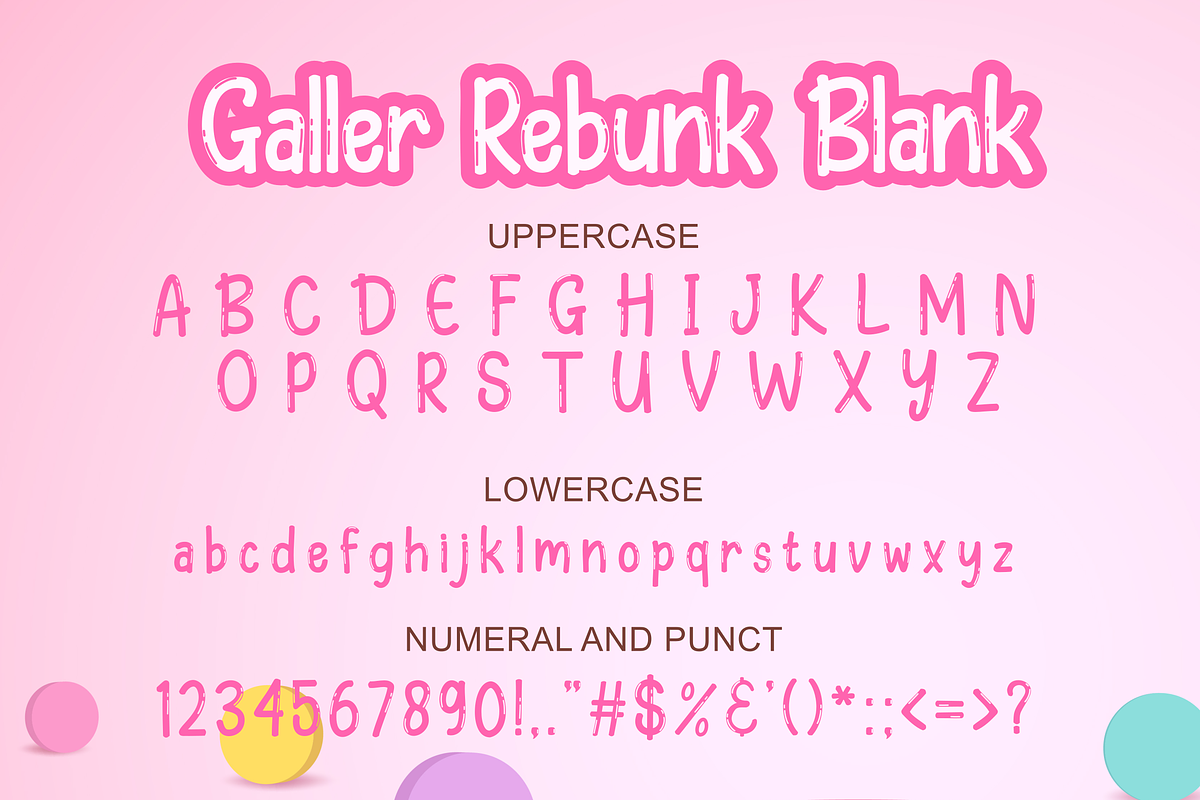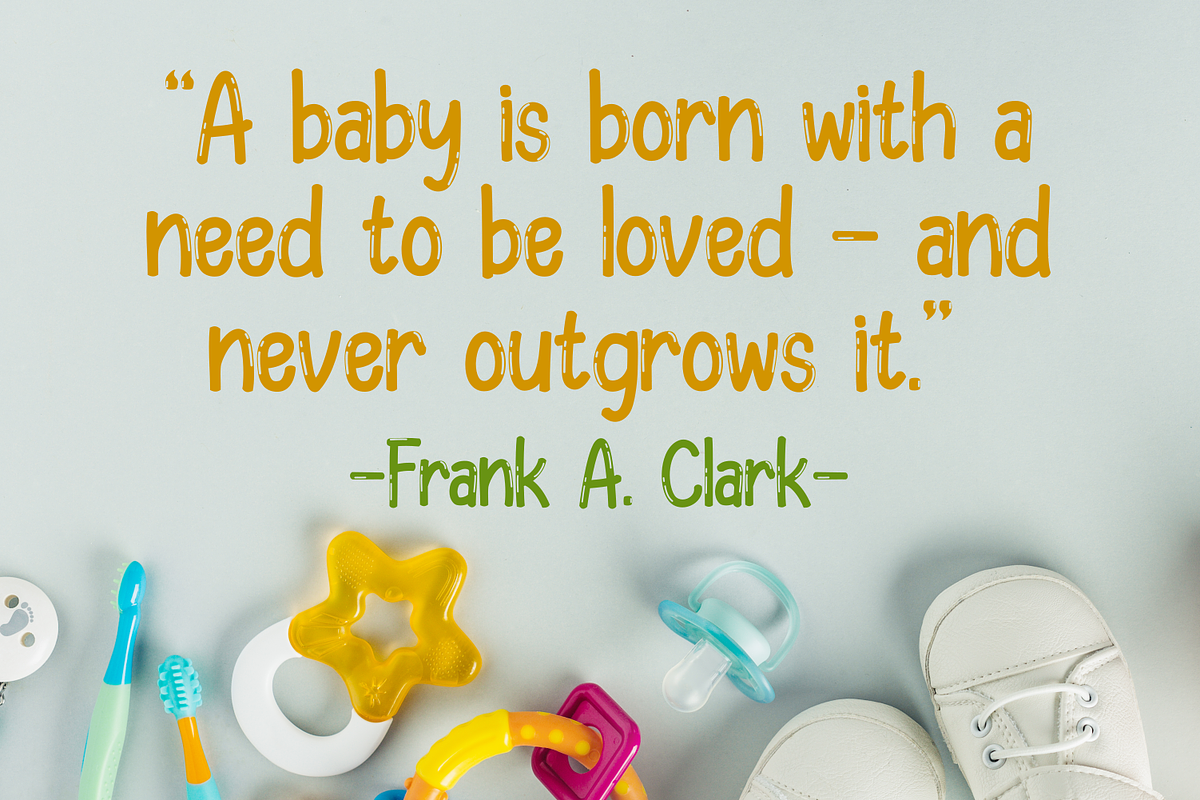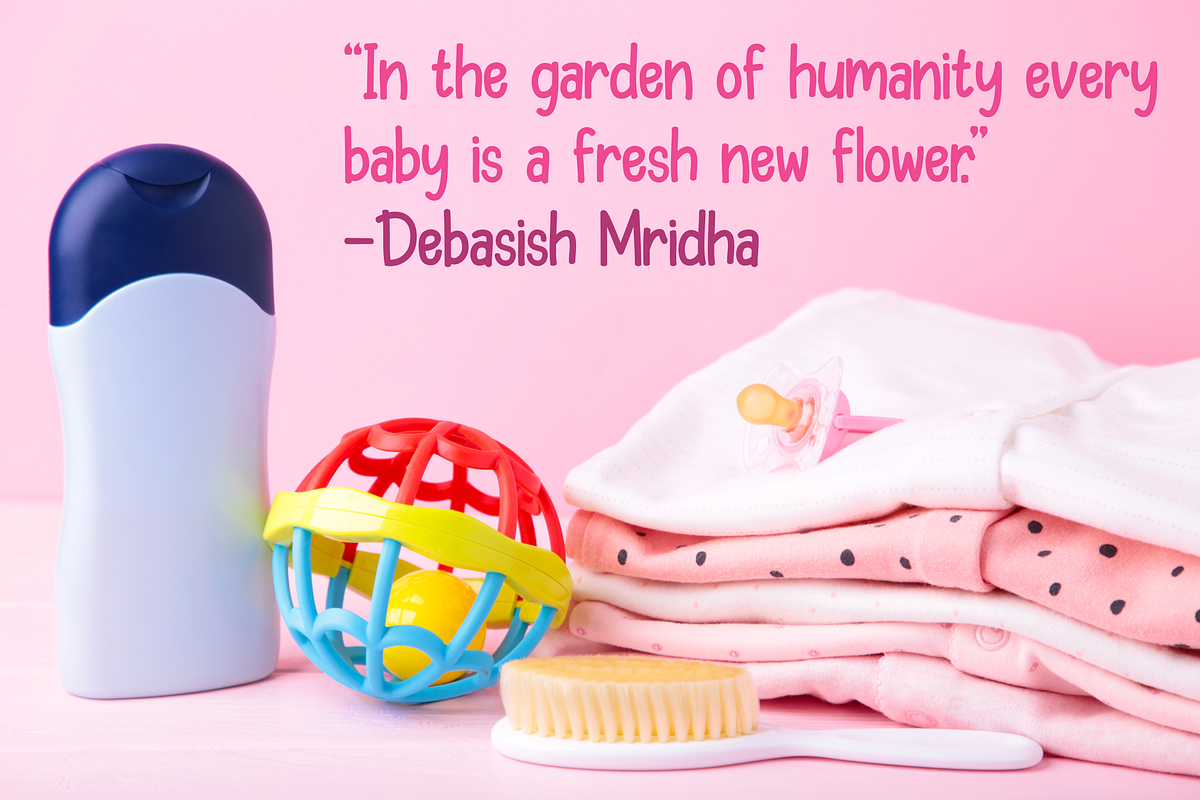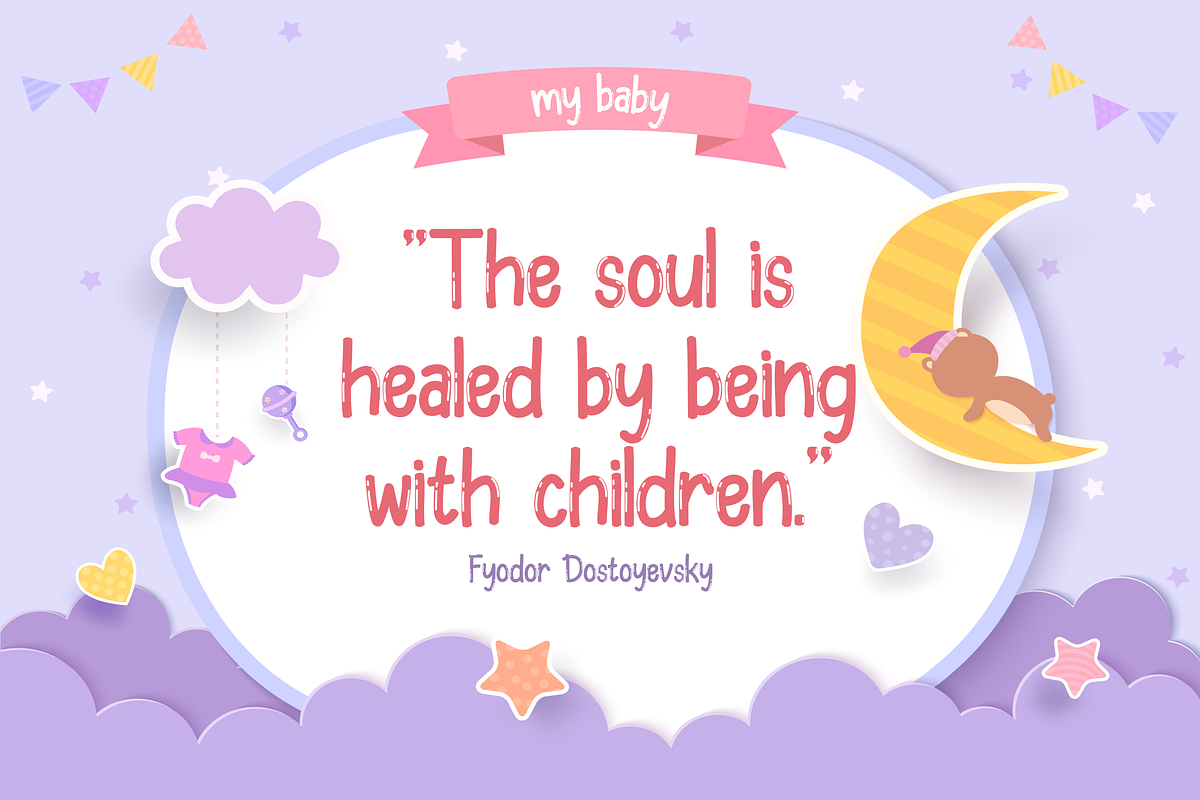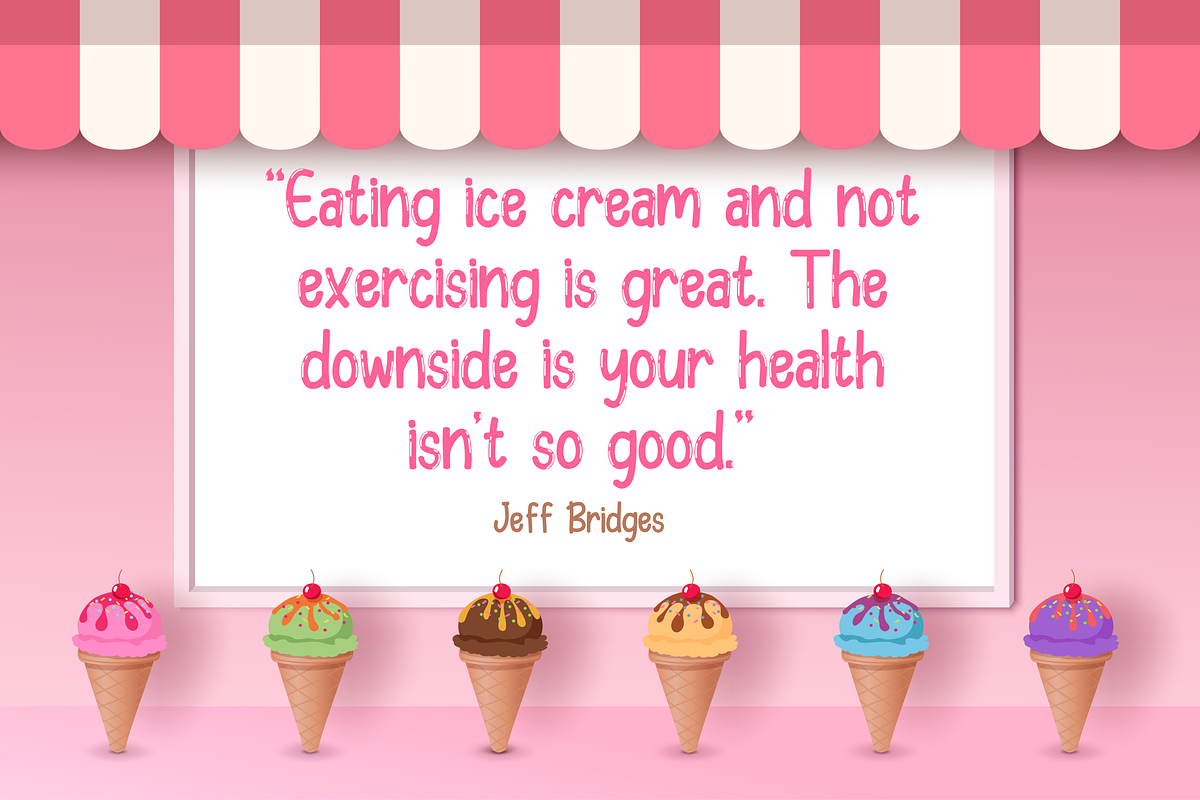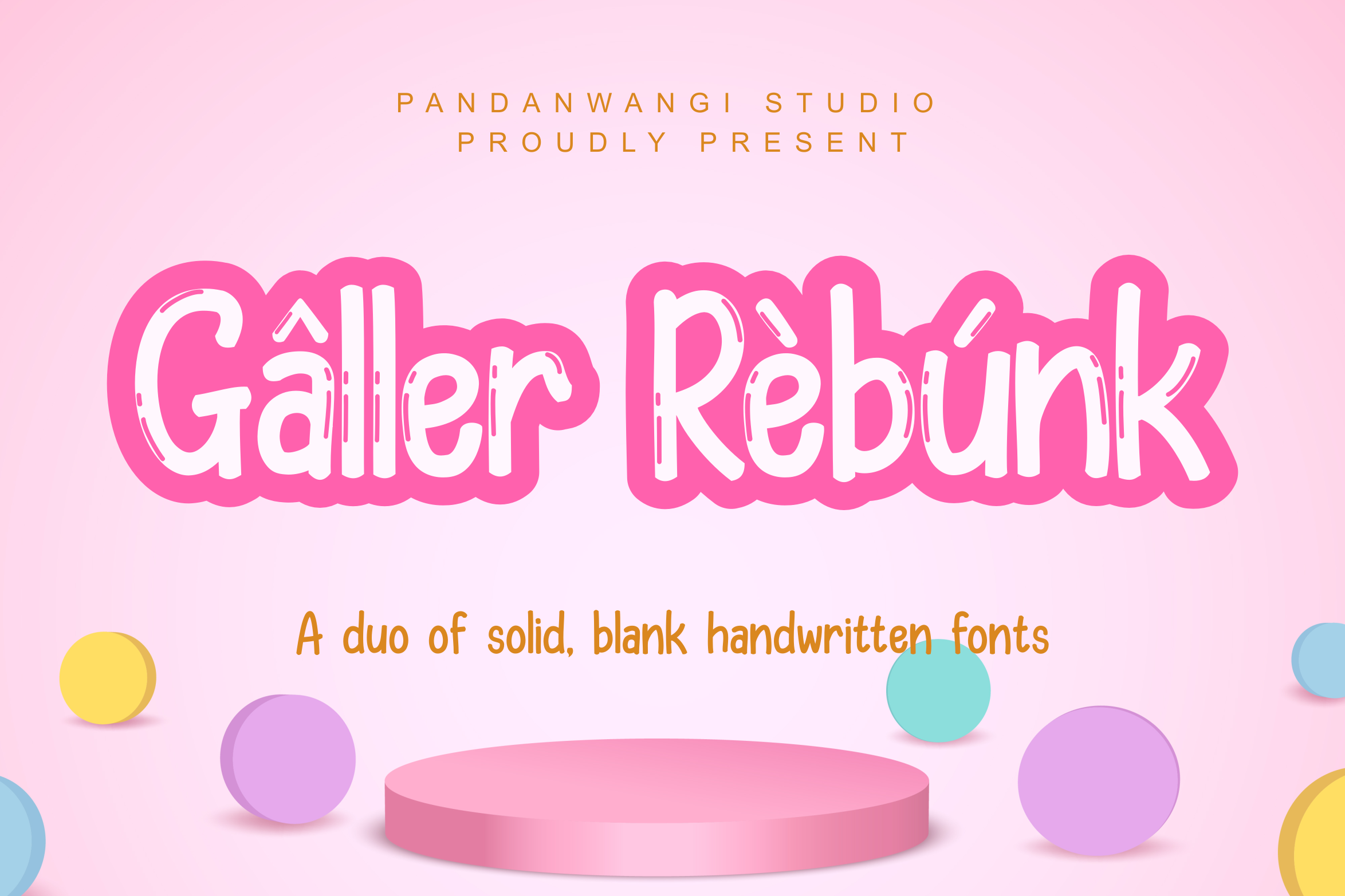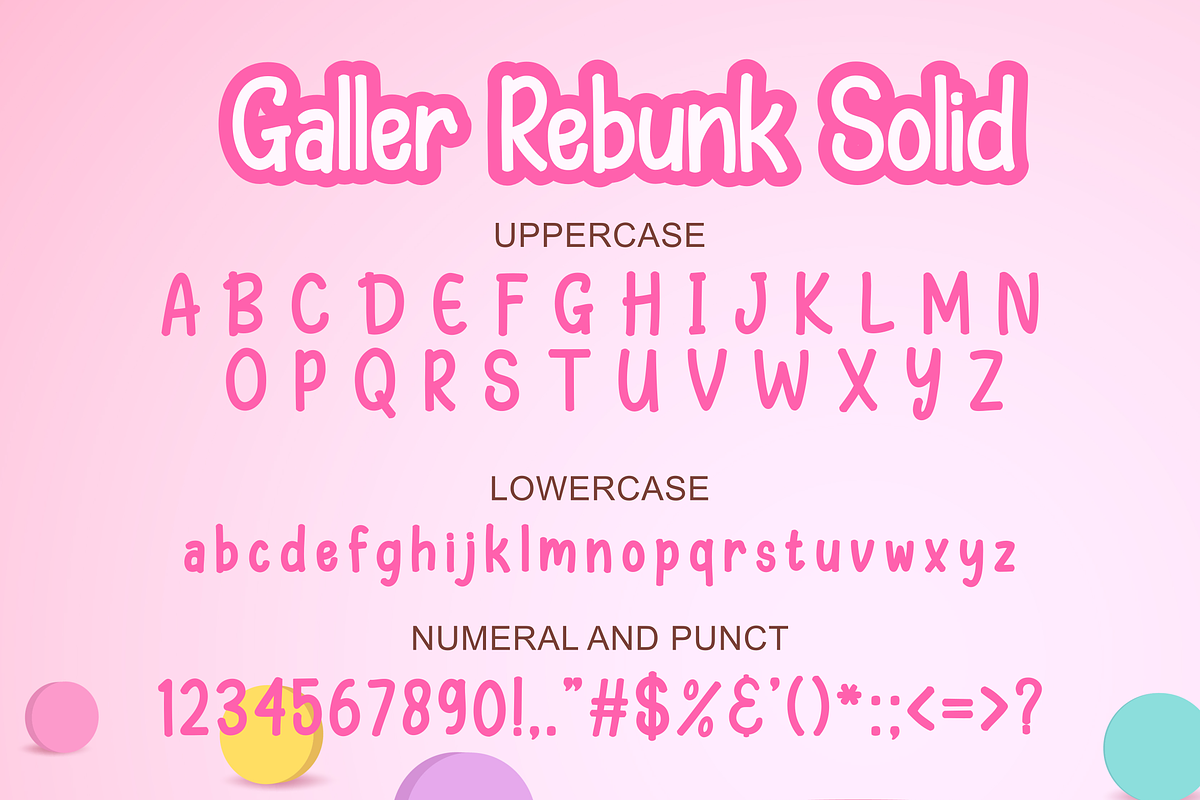
Galler Rebunk - Font Duo
Galler Rebunk is a sweet and friendly handwritten font that has 2 solid and punched shapes. This dazzling handwritten font will turn any creative idea into a standout. Its natural and unique style makes it perfectly suited to large pool designs. Get inspired by its authentic feel and use it to make beautiful wedding invitations, beautiful stationery art, eye-catching social media posts, and cute greeting cards. The only limit is your imagination!
Uppercase Supports international languages that include numerals, punctuation, multiple headings, alternative styles, and can be accessed in the Adobe Illustrator Glyphs panel, or under Stylistic Alternates in Adobe Photoshop OpenType, Adobe InDesign, Corel Draw, and even works in Microsoft Word. TTF, OTF files.